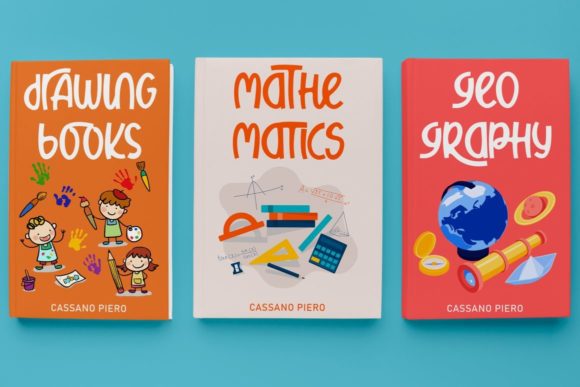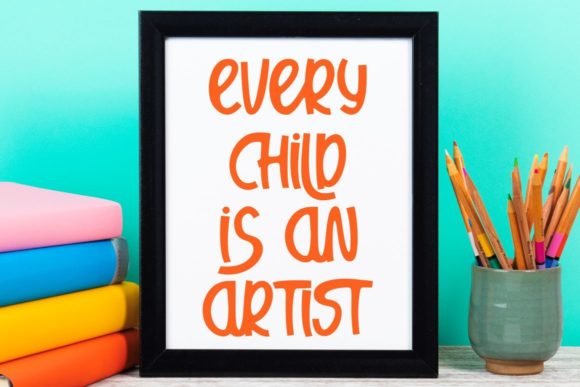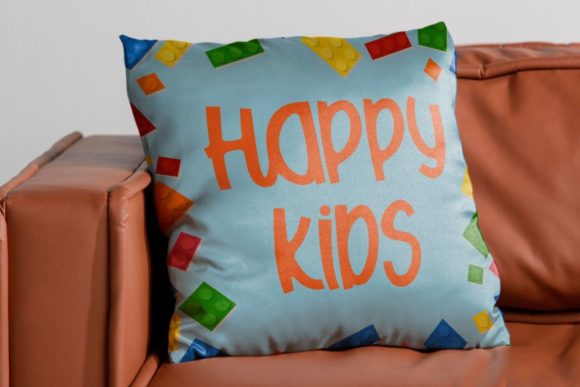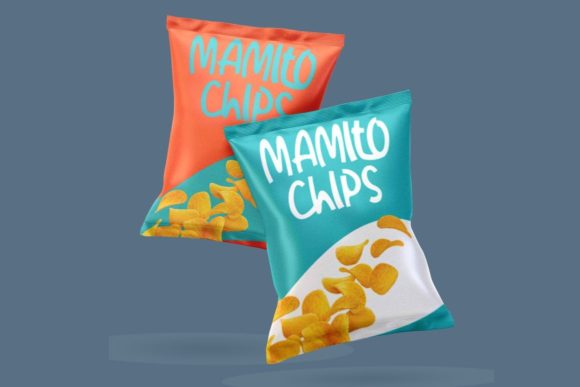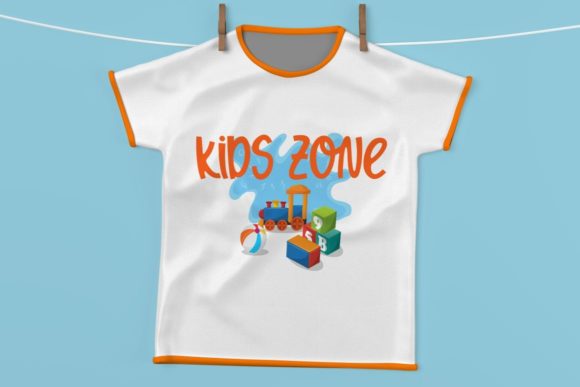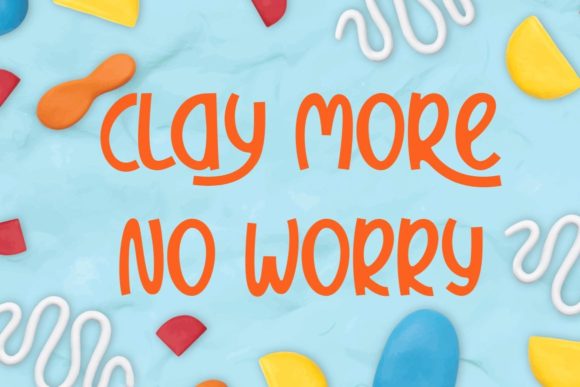
Introduction to Child Krafter Font
Child Krafter is a sweet, playful and relaxed display font.
Key Features of Child Krafter Font
Why Choose Child Krafter Font?